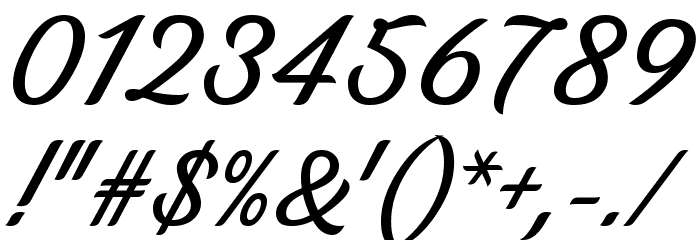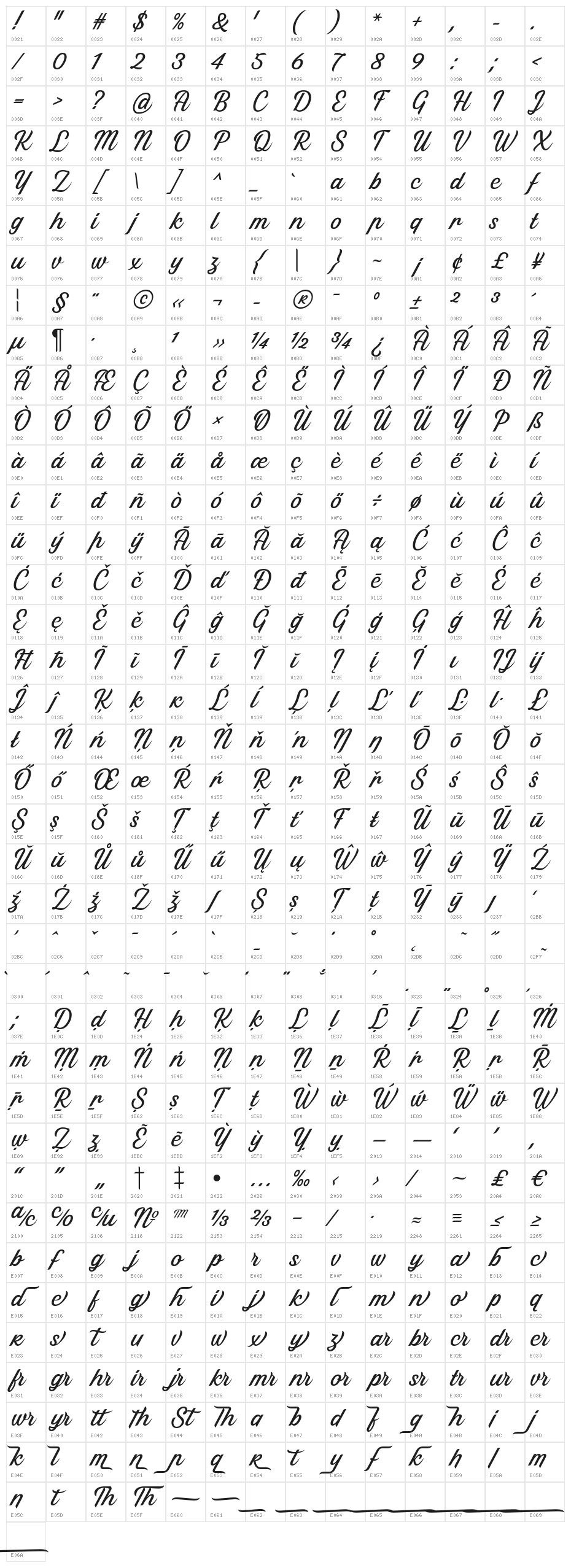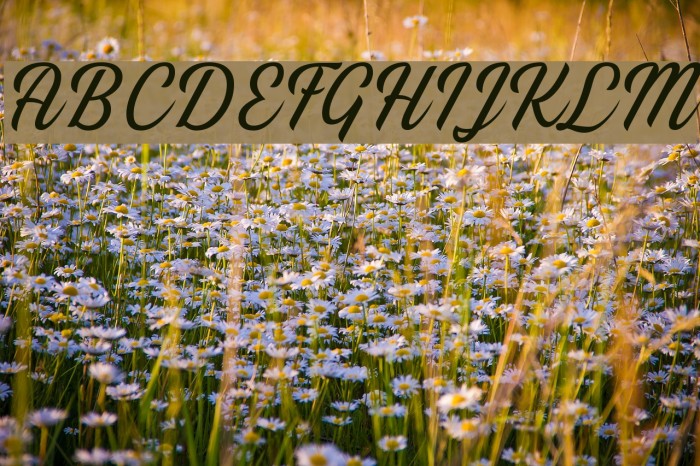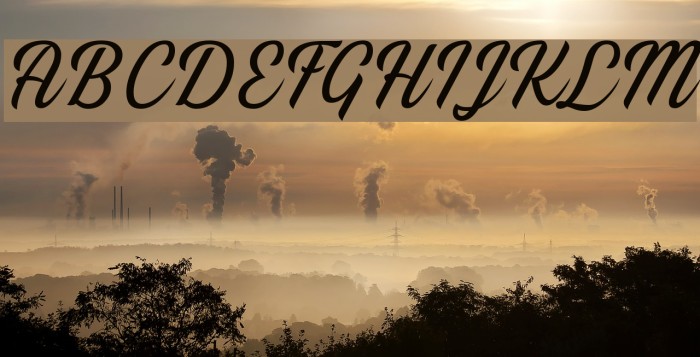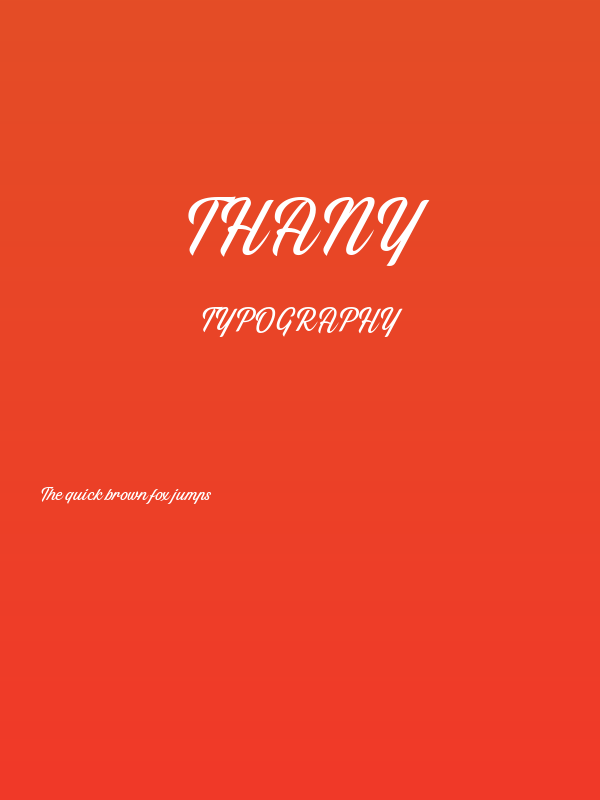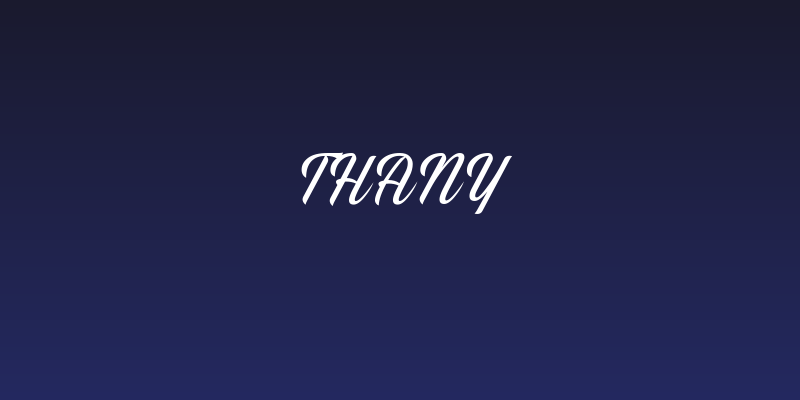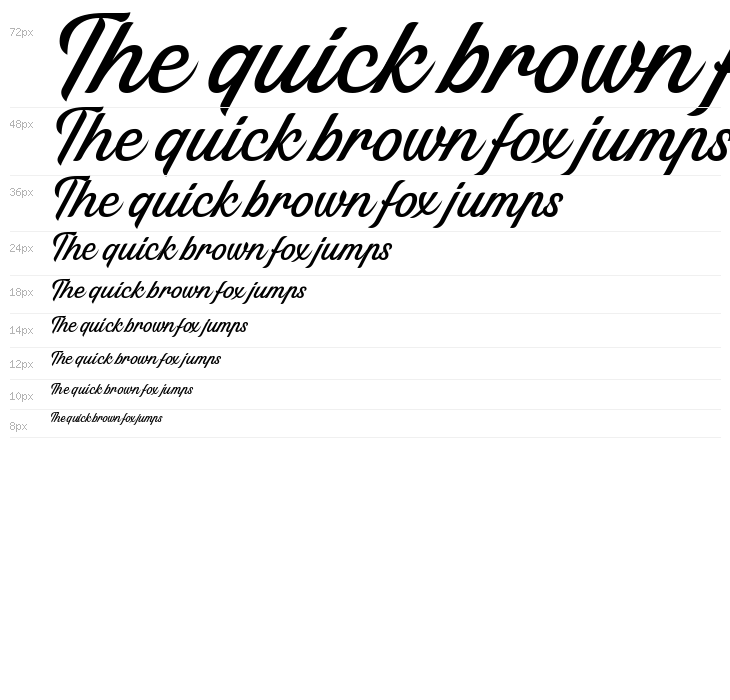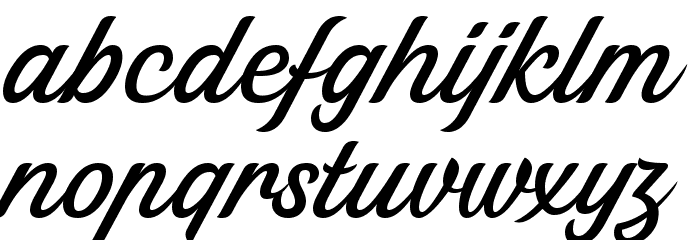
Thany Font
Thany Description
This font features a flowing, cursive style with elegant, sweeping curves that give it a sophisticated and graceful appearance. The uppercase letters are bold and prominent, while the lowercase letters maintain a consistent fluidity, enhancing readability. The numerals are well-integrated into the design, maintaining the same cursive flair. Special characters are crafted with the same attention to detail, ensuring a cohesive look across all glyphs. The font's overall design is reminiscent of traditional calligraphy, making it suitable for projects that require a touch of elegance and class.
| Proposed Projects | Ideal for wedding invitations, elegant branding, greeting cards, and upscale packaging. |